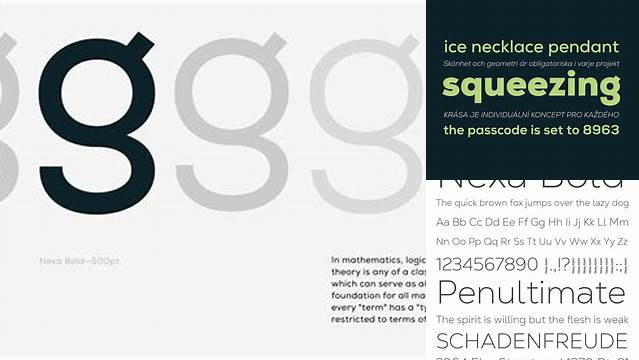
Nexa Font: Free Font Fabric For Modern Design
Are you on the hunt for a versatile and modern font to elevate your design projects? Look no further! The Nexa font family, crafted by Fontfabric, is a fantastic choice, and the best part is, some styles are available for free! In this article, we'll dive deep into what makes Nexa so special, how you can use it, and where to find those coveted free versions. So, let's get started, guys!
What is Nexa Font?
Nexa is a geometric sans-serif typeface known for its clean lines, contemporary feel, and excellent readability. Designed by Svetoslav Simov at Fontfabric, Nexa has become a popular choice for a wide range of design applications. Its versatility shines through its various weights and styles, making it suitable for everything from headlines and logos to body text and web design. This font family exudes a sense of modern elegance and functional simplicity, making it a go-to option for designers aiming for a polished and professional look. Its geometric construction provides a sturdy and balanced appearance, ensuring legibility across different media and sizes. Whether you're working on a branding project, a website design, or print materials, Nexa offers the flexibility and clarity needed to convey your message effectively.
The extensive character set supports multiple languages, further enhancing its usability for global projects. The carefully crafted letterforms and precise spacing contribute to its overall aesthetic appeal, making it a visually pleasing choice for designers. Moreover, Nexa's clean and uncluttered design makes it easy to pair with other fonts, offering designers the freedom to create unique and harmonious typography. Its geometric structure also aligns well with modern design trends, ensuring that your projects remain current and stylish. The font's adaptability makes it an excellent choice for various applications, from digital interfaces to print publications. Nexa's popularity among designers is a testament to its quality and versatility, making it a valuable asset in any design toolkit. Its clean, modern aesthetic ensures that your designs will stand out while maintaining a sense of professionalism and readability. With its wide range of weights and styles, Nexa offers the perfect balance between form and function, making it an indispensable font for any design project.
Key Features of Nexa:
- Geometric Sans-Serif: This means it's built on simple geometric shapes, giving it a clean and modern look.
- Versatile: It works well for headlines, body text, logos, and more.
- Multiple Weights: Nexa comes in various weights, from light to bold, offering flexibility in your designs.
- Excellent Readability: Its clear and simple design ensures readability across different sizes and media.
- Modern Aesthetic: Nexa's clean lines and geometric forms make it a perfect fit for contemporary designs.
Why Choose Nexa Font for Your Designs?
Choosing the right font can make or break a design. Nexa font family provides a unique blend of modernity, versatility, and readability, making it an excellent choice for a wide range of projects. Its geometric sans-serif design is inherently clean and contemporary, lending a polished and professional look to any design. Whether you’re crafting a logo, designing a website, or putting together marketing materials, Nexa's versatility ensures it can adapt to various contexts. The multiple weights and styles available within the Nexa family allow you to create a visual hierarchy, emphasizing key elements and maintaining a consistent tone throughout your design. Its legibility is another significant advantage, ensuring that your message is clear and accessible across different sizes and media. Nexa’s straightforward letterforms and balanced spacing make it easy to read, whether it’s used in headlines, body text, or even smaller captions. This is particularly important for user interfaces and web design, where readability is paramount.
Moreover, Nexa's aesthetic aligns well with current design trends, ensuring your projects look modern and fresh. Its clean, uncluttered appearance makes it an excellent choice for minimalist designs, while its various weights allow for more expressive and dynamic compositions. The font's adaptability also extends to branding projects, where consistency is crucial. Nexa's cohesive design across its different styles helps maintain a unified visual identity, making it a valuable asset for businesses looking to establish a strong brand presence. In addition to its aesthetic and functional qualities, Nexa’s availability in free versions for certain styles makes it an attractive option for designers working on a budget. This allows you to experiment with a high-quality font without the initial investment, making it a smart choice for personal projects or startups. Ultimately, Nexa's combination of style, versatility, and readability makes it a powerful tool for any designer. Its ability to seamlessly integrate into various design contexts ensures that your projects will look professional and impactful, helping you communicate your message effectively.
The primary place to look for these free versions is the Fontfabric website. They often have dedicated pages for free fonts, and Nexa is frequently featured among them. You can also find free Nexa styles on various font download websites, such as MyFonts, Font Squirrel, and Behance. However, it's essential to download fonts only from reputable sources to avoid malware or copyright issues. When downloading from third-party sites, make sure they have clear licensing information and positive user reviews. Social media platforms and design communities, like Dribbble and Behance, are also great resources for discovering free fonts. Designers often share their work and provide links to free resources they’ve used, including fonts. Participating in these communities can help you stay updated on the latest freebies and design trends. Remember, while the free Nexa styles offer a great starting point, the full Nexa family includes a broader range of weights and styles, providing even more flexibility for your projects. If you find yourself frequently using Nexa, investing in the complete family might be a worthwhile option to unlock its full potential.
How to Use Nexa Font in Your Projects
So, you've got your hands on the Nexa font – awesome! Now, let's talk about how to effectively use it in your design projects. Nexa's versatility makes it suitable for a wide range of applications, but understanding its strengths will help you maximize its impact. For starters, consider the specific style you're using. Nexa Light is excellent for adding a touch of elegance and sophistication, making it ideal for minimalist designs, subtle headlines, or body text where a clean, airy feel is desired. On the other hand, Nexa Bold is a powerhouse for headlines, logos, and call-to-action buttons, where you need to grab attention and make a strong statement. When using Nexa in branding projects, consistency is key. Choose a few weights and styles that align with your brand's personality and stick to them across all your materials, from your logo and website to your marketing collateral. This will help create a cohesive and recognizable brand identity.
Nexa font is a fantastic asset for any designer, offering a blend of modern aesthetics, versatility, and readability. The availability of free styles makes it even more appealing, allowing you to experiment and create stunning designs without breaking the bank. Whether you're working on a branding project, a website, or print materials, Nexa's clean lines and geometric forms will help you achieve a polished and professional look. So, go ahead, guys, download those free Nexa styles and start creating! And remember, if you fall in love with it (which we're pretty sure you will), consider investing in the full family to unlock its full potential. Happy designing!